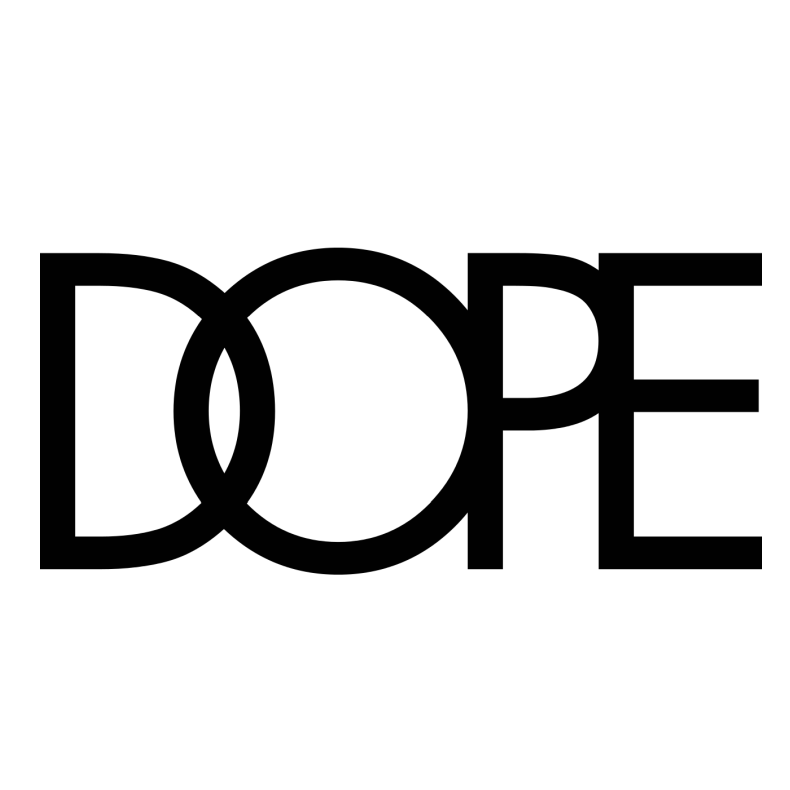
Dope Logo Font
ApparelThe Dope Couture brand, founded in 2007, is a streetwear brand based in Los Angeles, California. Hip-hop artists such as P Diddy, Jay-Z, Big Sean, Wale, Talib Kweli, Lil Xan, Wiz Khalifa, Mac Miller, Kendrick Lamar, and Kid Ink have helped expose the Dope brand.
Dope's logo probably draws inspiration from Futura, one of the most popular geometric fonts. In 1927, Paul Renner designed the sans-serif typeface.